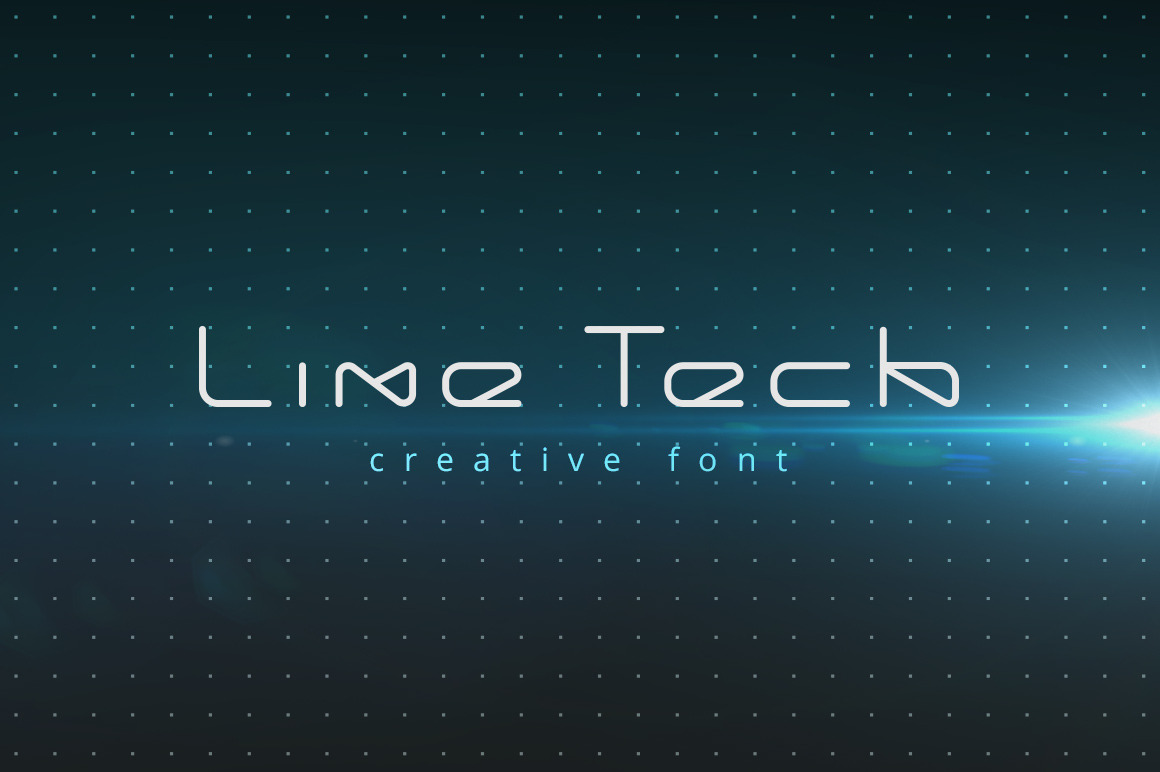
LineTech futuristic technology font
LineTech is Linear Futuristic web font. It contains three versions: Bold, Regular, Light
- Use it for Technology, Science, Web, Computer areas.
- LineTech Font is good for Titles and Logo Monograms.